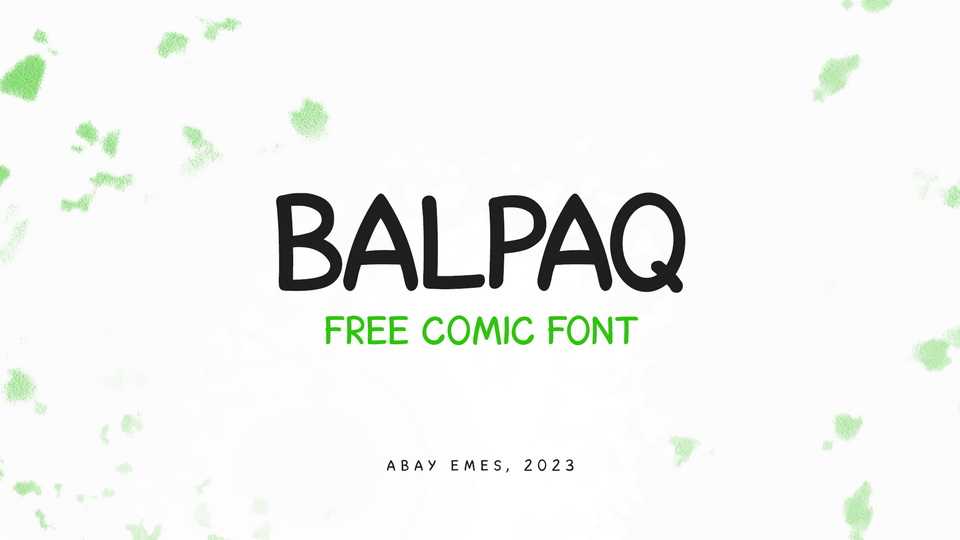
Download Balpaq font, a comic book typeface made by a designer from Kazakhstan. Add a playful and cheerful vibe to your designs with Balpaq font.
Designer: Abay Emes